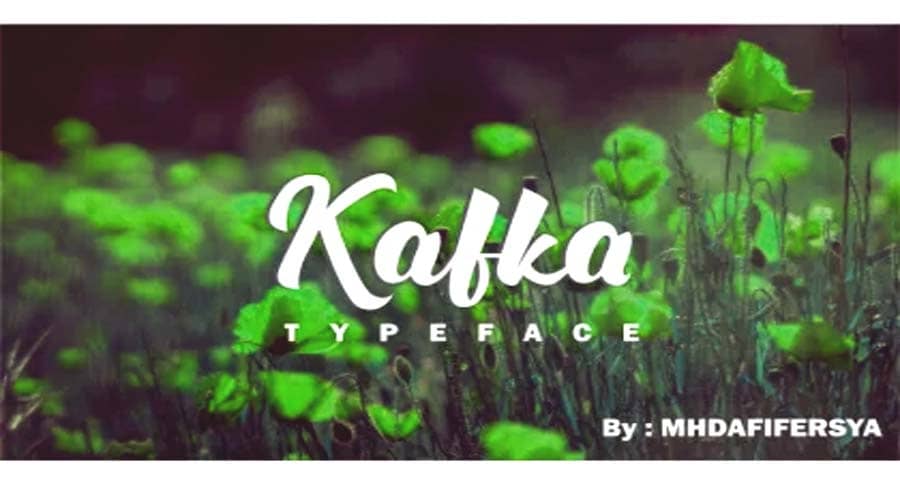
Kafka Font
mhdafifersya created and released Kafka, a high-quality Calligraphy typeface, on November 25, 2018.
Invitations, marketing items, postcards, slogans, posters, and so much more look great with this typeface! Furthermore, because of its Calligraphy characteristic, the font looks amazing on any artistic activity.